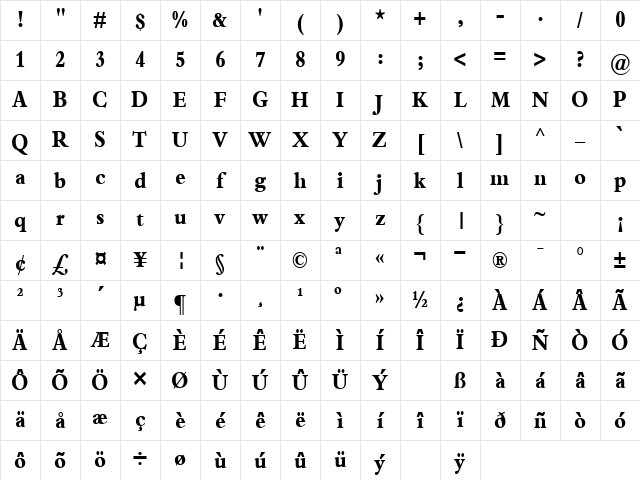
VittateCond Bold Free Font
Design Context for VittateCond
VittateCond is a composed and adaptable typeface that performs quietly and consistently across a wide range of design contexts. Its bold stroke weight gives it real presence on the page. Its narrow stance lets it pack a punch even in space-constrained designs.